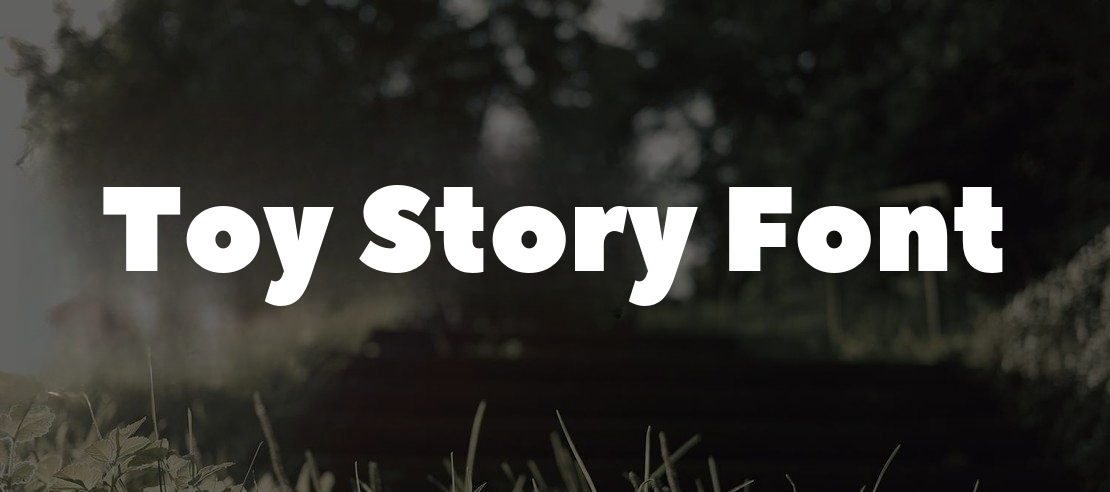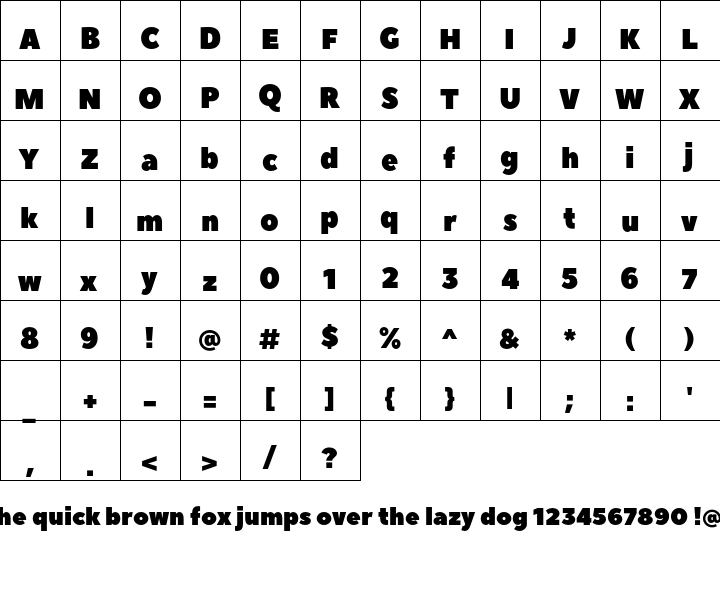
Toy Story Font is a member of the Sans-Serif typeface family. This font is encouraged by the font that was used in the poster and monogram of a famous kid’s cartoon show named ToyStory.
But the original logo of this cartoon movie is created with two different typefaces. The Toy section has a different typeface, and the Story section uses a different font style.
A Customized comic font was used to create the toy component, which was designed by Eric Gill in 1926 and published by Monotype a year later in 1928. While the gill sans font was used to create the story section.
This amazing display font style is created by a well-reputed Eric Gill. He was a great sculptor and typographic designer who has created many the well-reputed typefaces and he was also associated with the crafts and arts.
The idea of creating this typeface is taken from the Gill Sans Font. It has comprised a family of its own that increases the worth of this font style.
The features of this typeface include Numbers, Symbols, Punctuations, Uppercase, Lowercase Letters, and multi-language support.
| Name | Toy Story Font |
| Style | Cartoon |
| Designer | Eric Gill |
This typeface can support up to 150 international languages.
This Font is a member of the Sans-Serif typeface family. This textured style is designed by Eric Gill.
Some of the typographies are really similar to this font texture. But, avenir font has the utmost similarities to this font. So, feel free to use this typeface as an alternative to this font style.